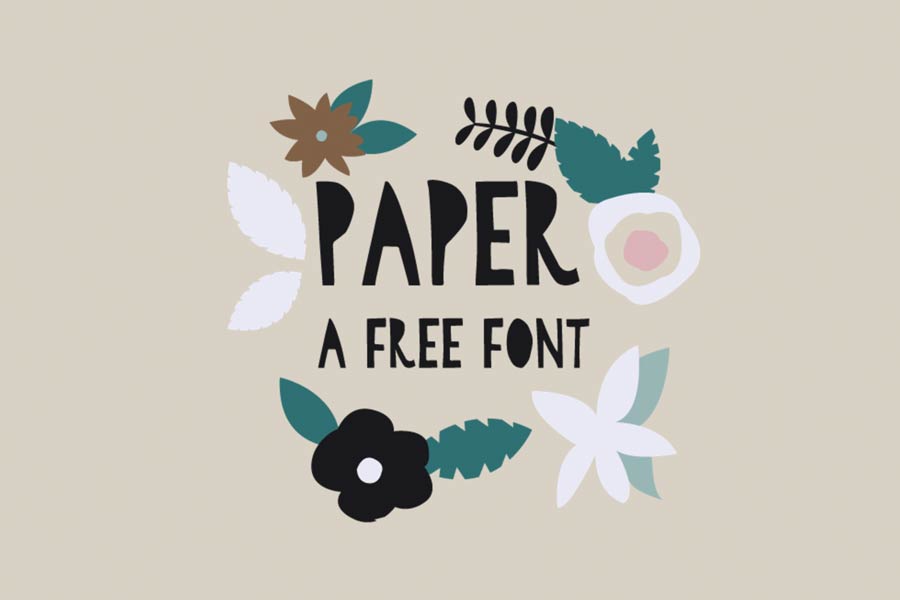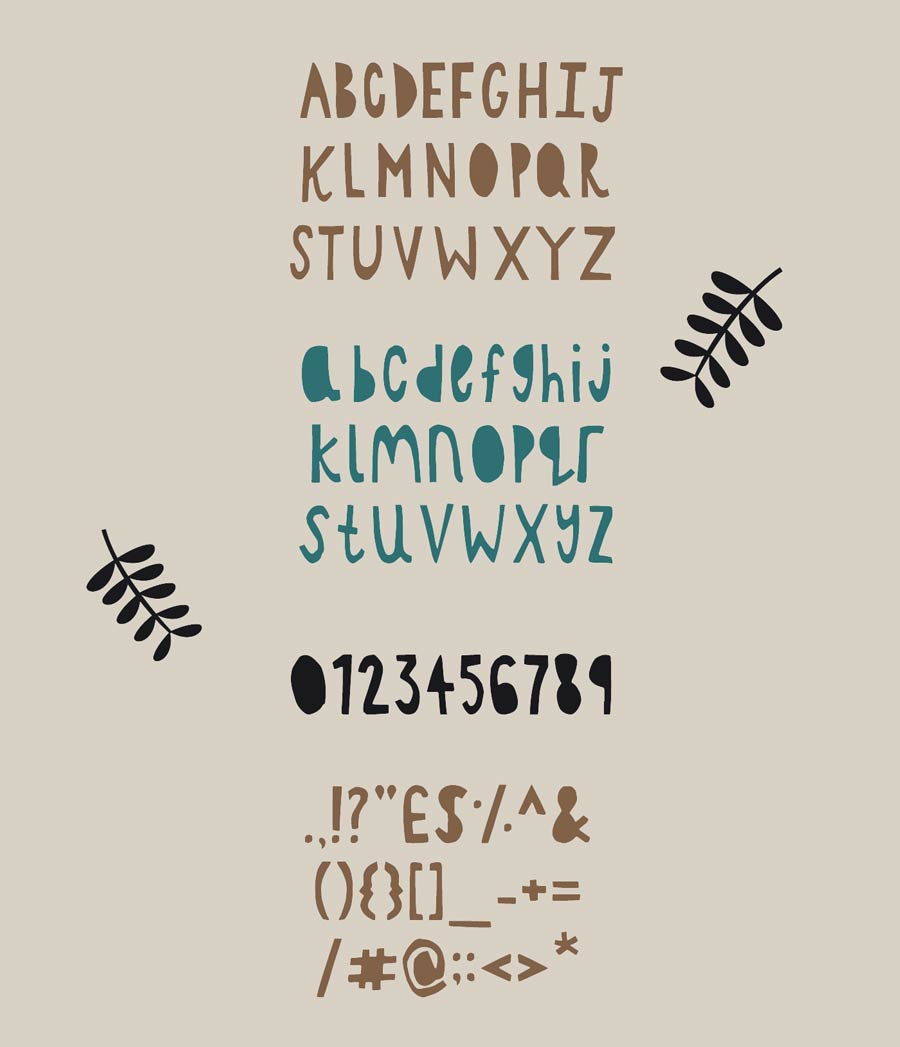
Paper is a cute display font that was created from real paper cut out. Letters were cut out from papers then traced to digital format, thus giving the raw sense of hand craft work. The unique part of this font resulting from the paper cutting is that the counters are not presented.